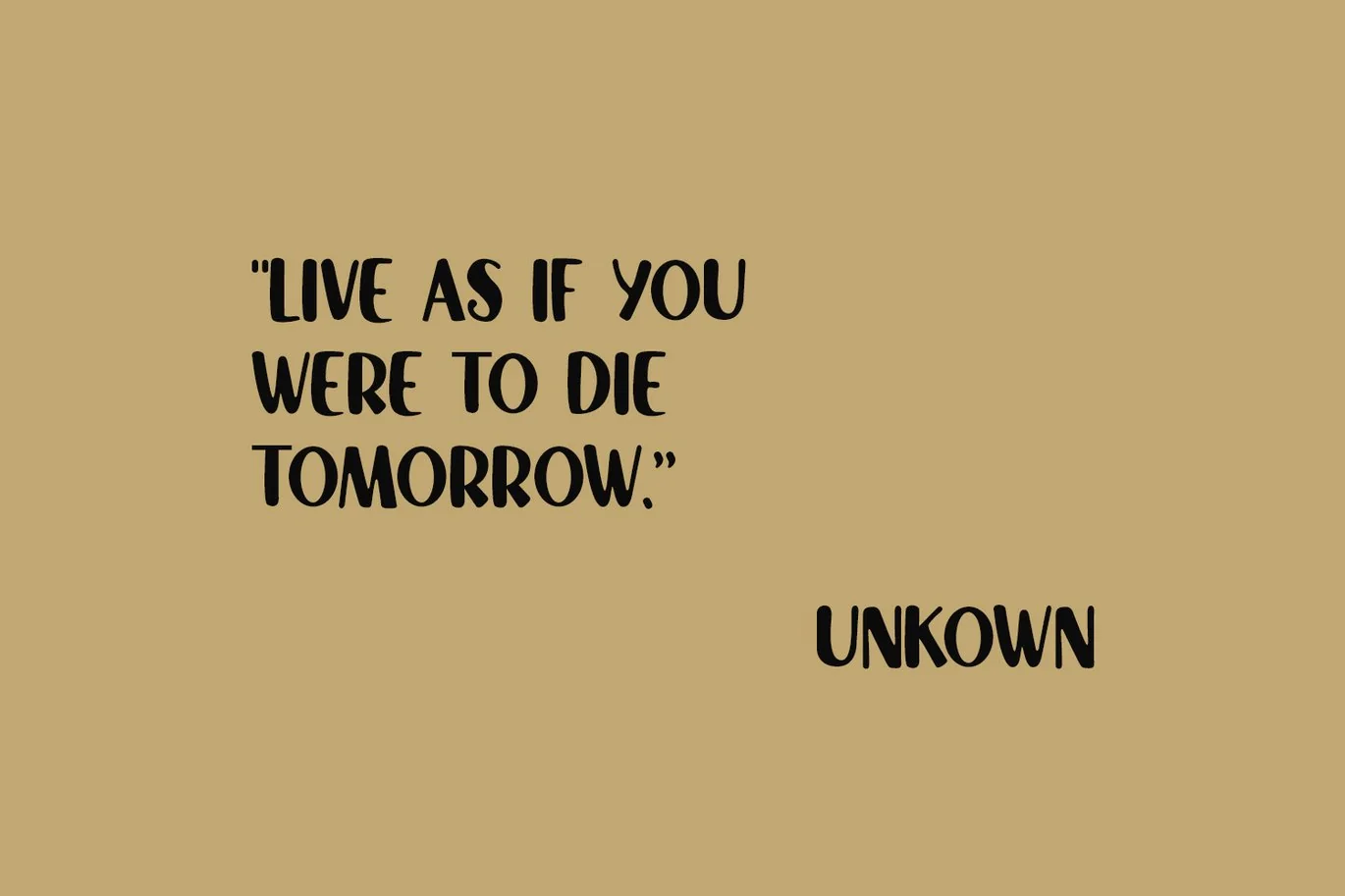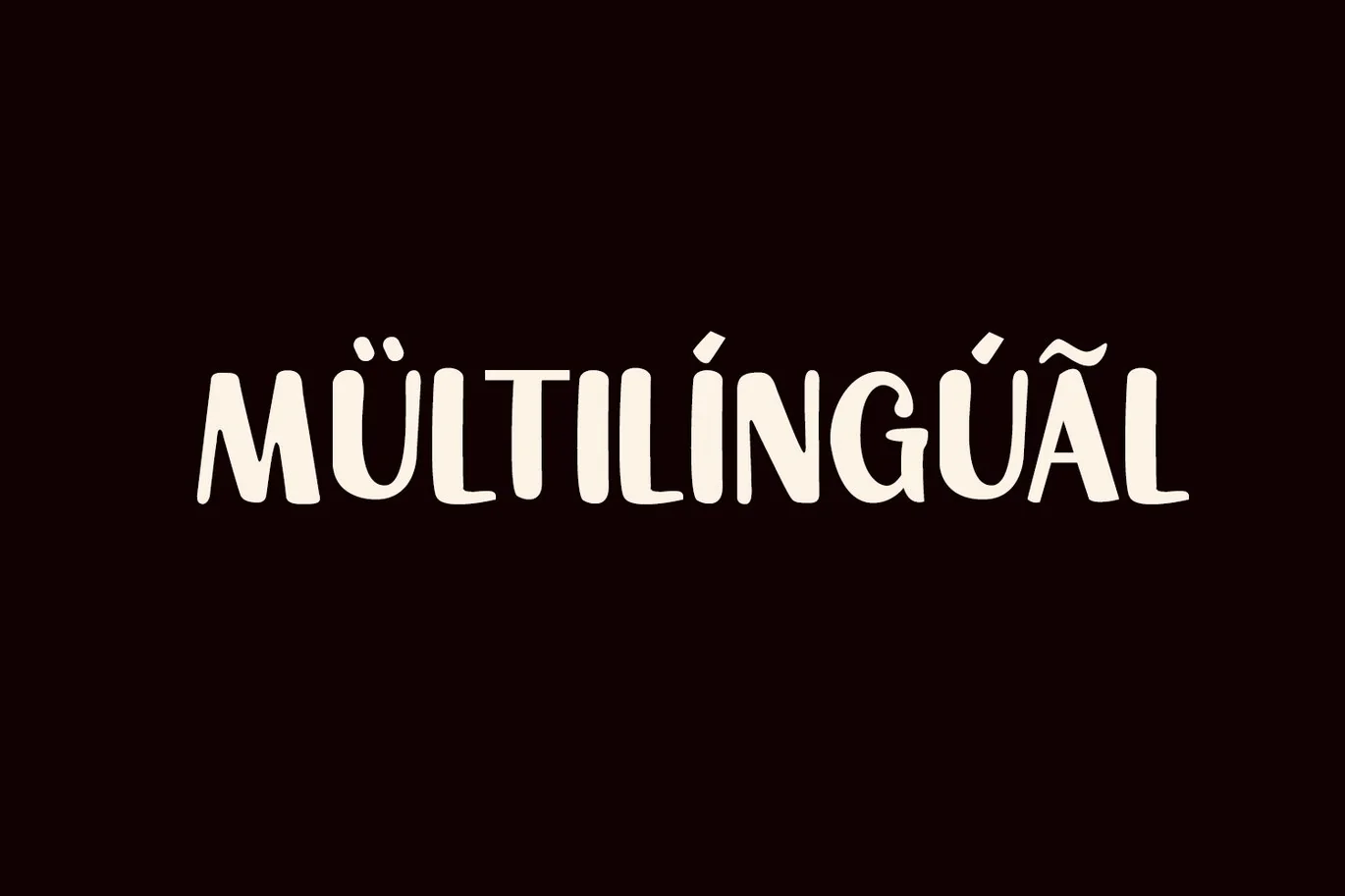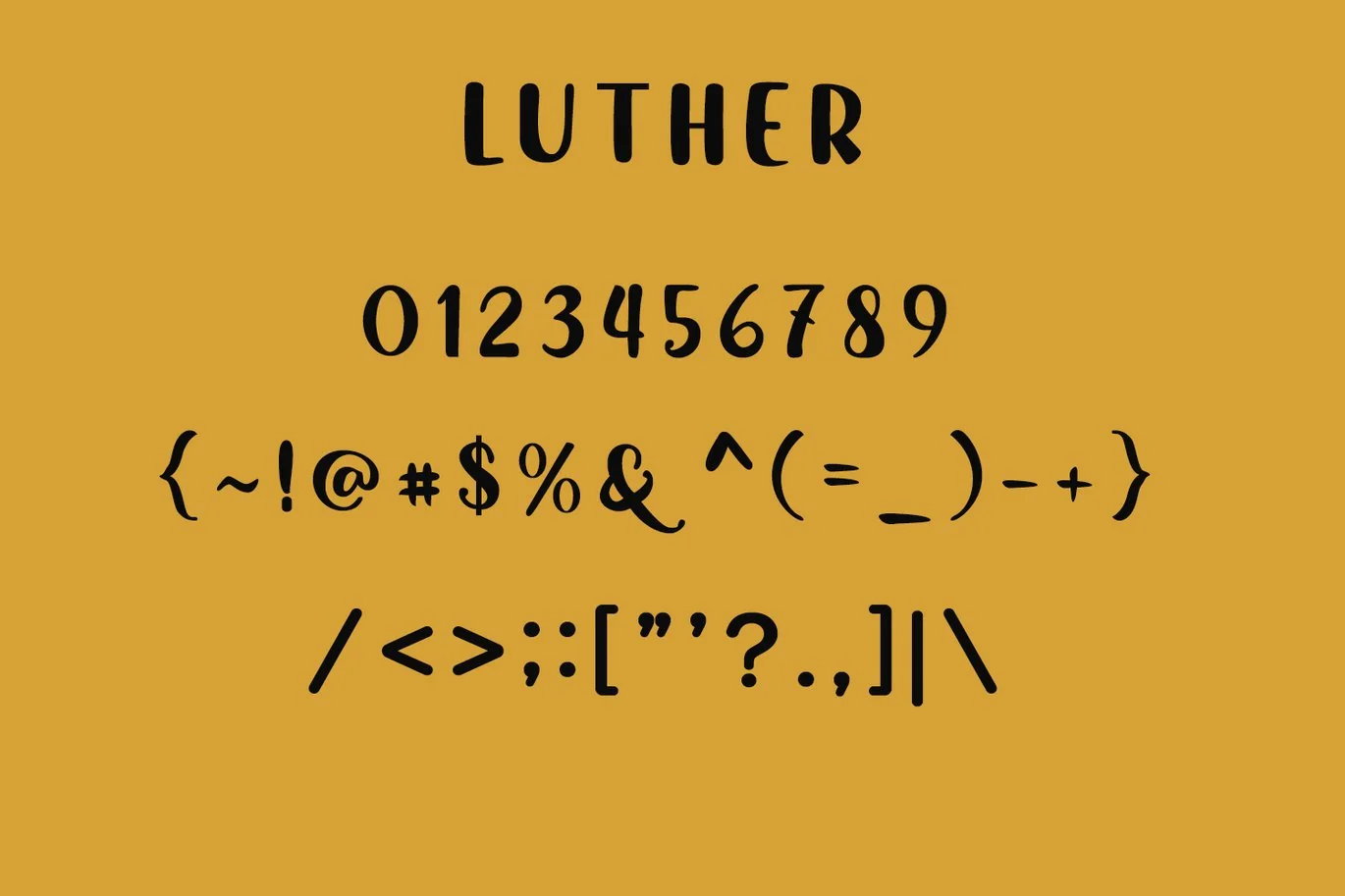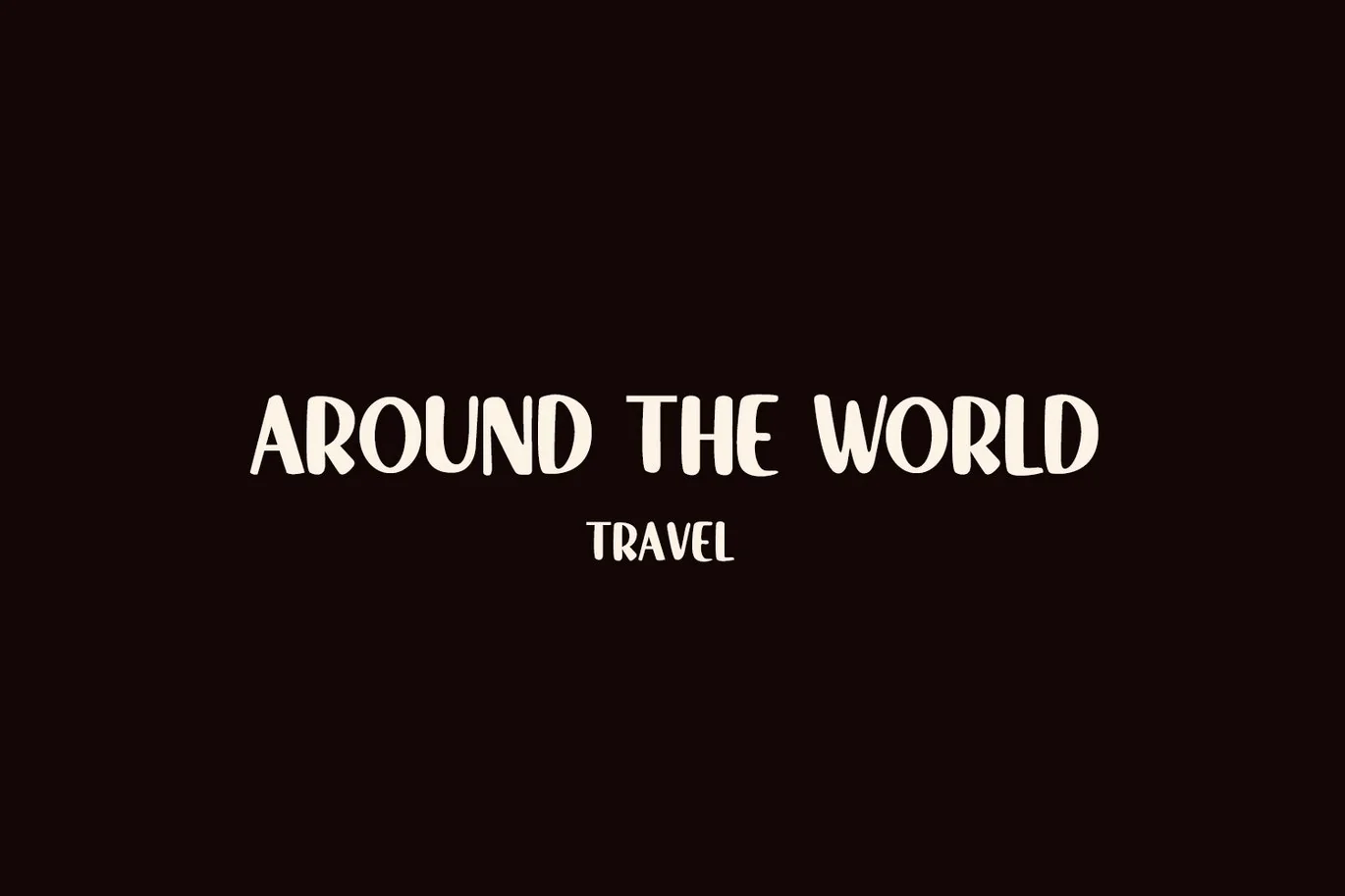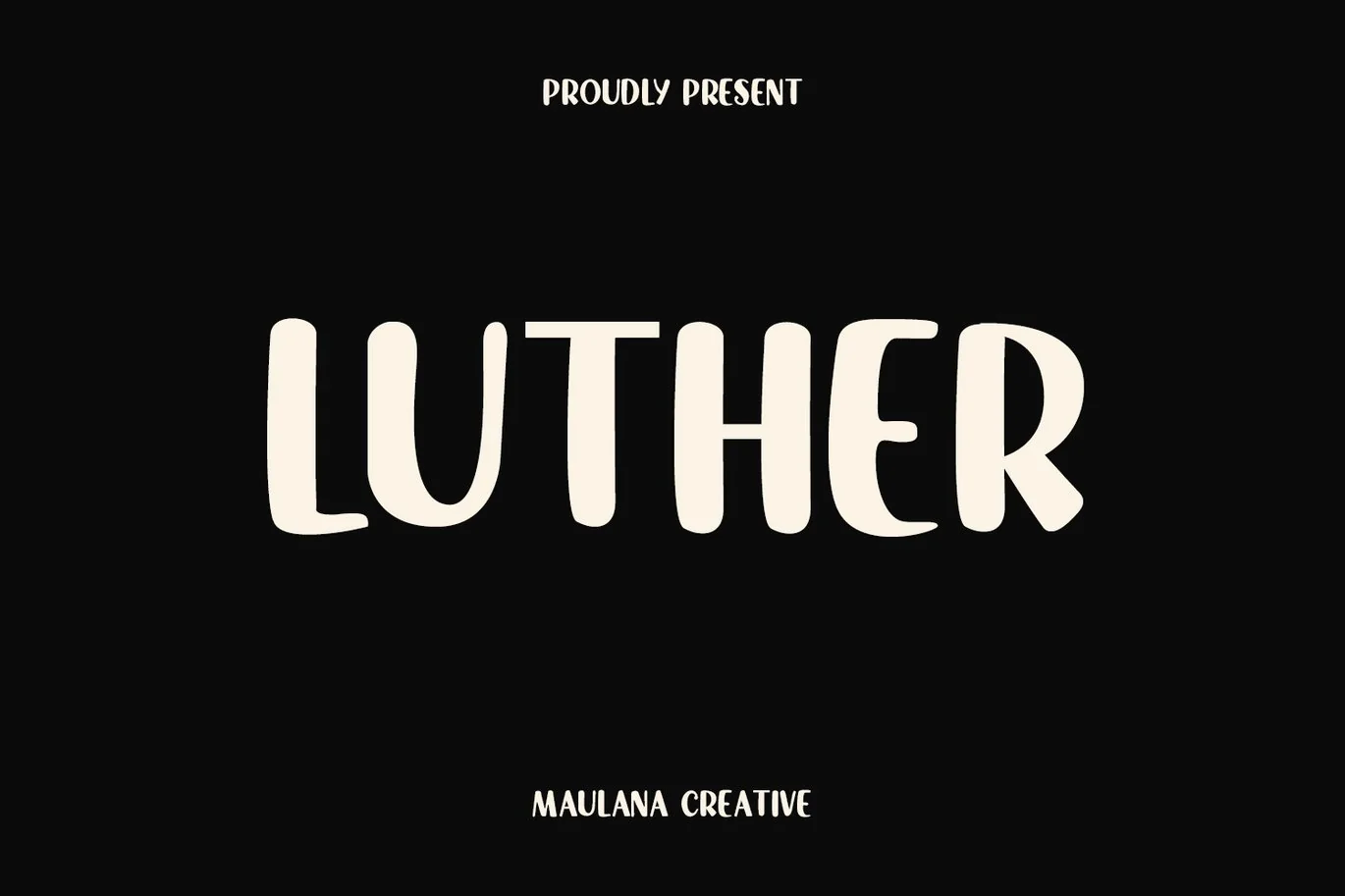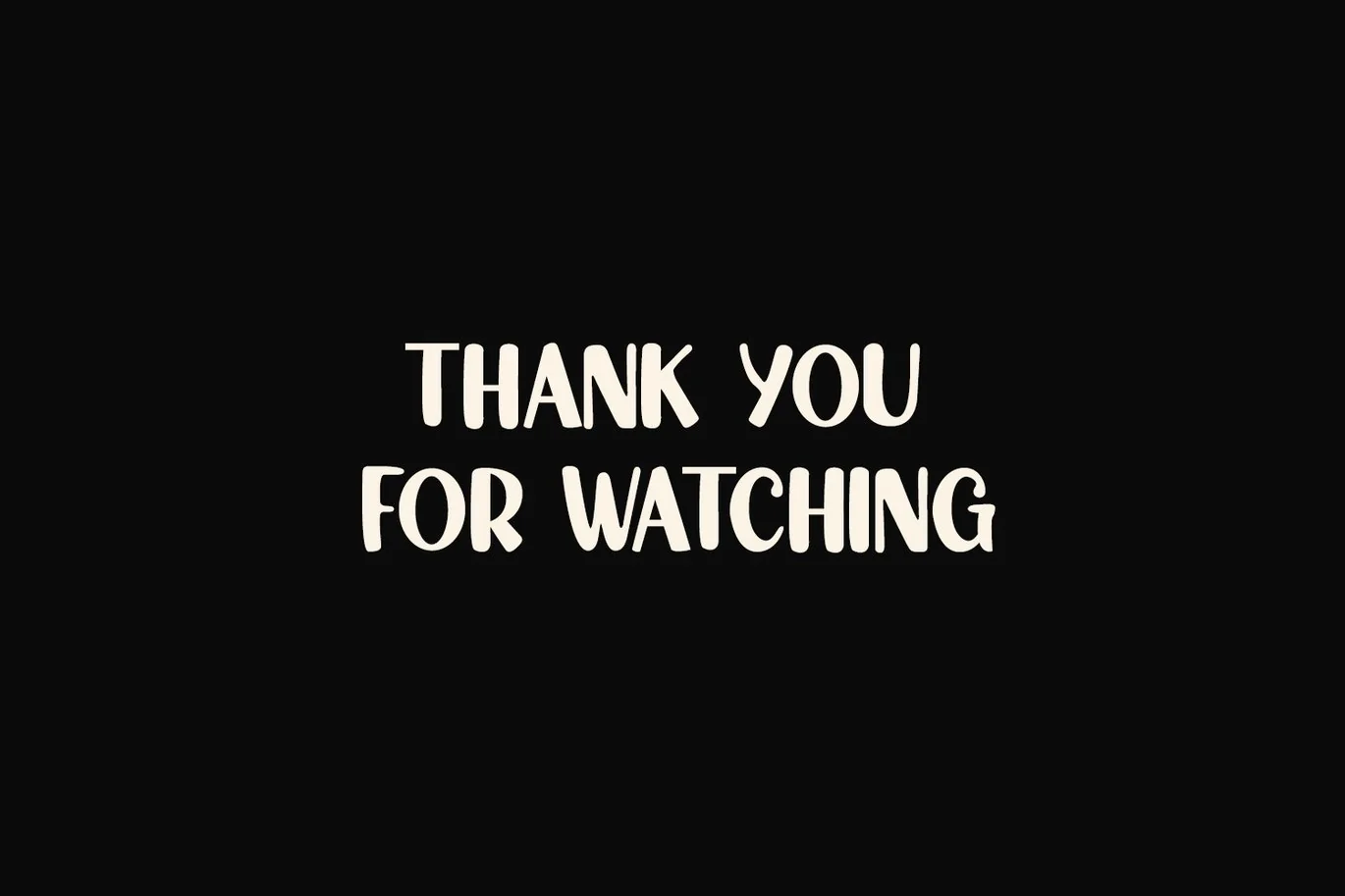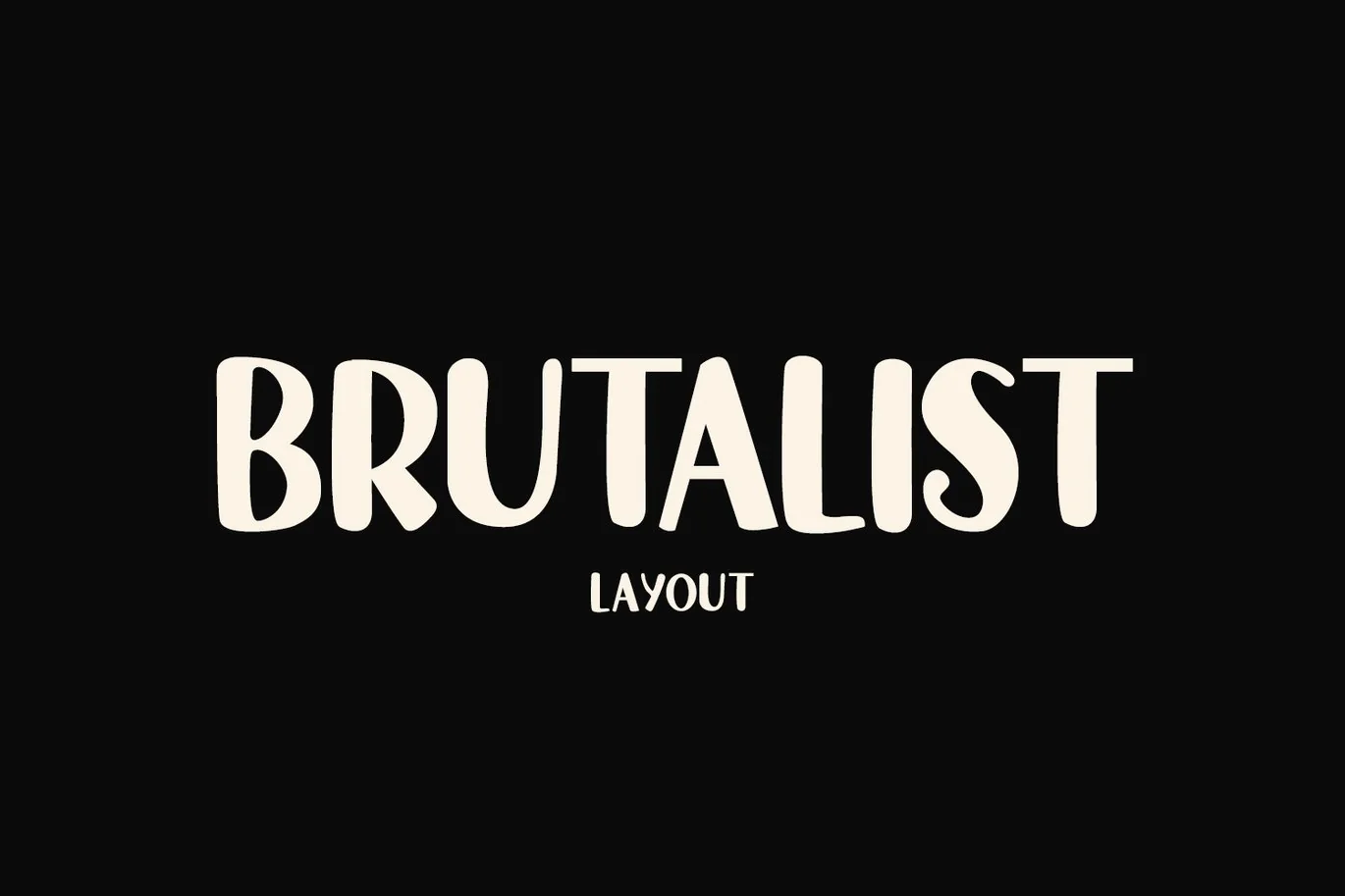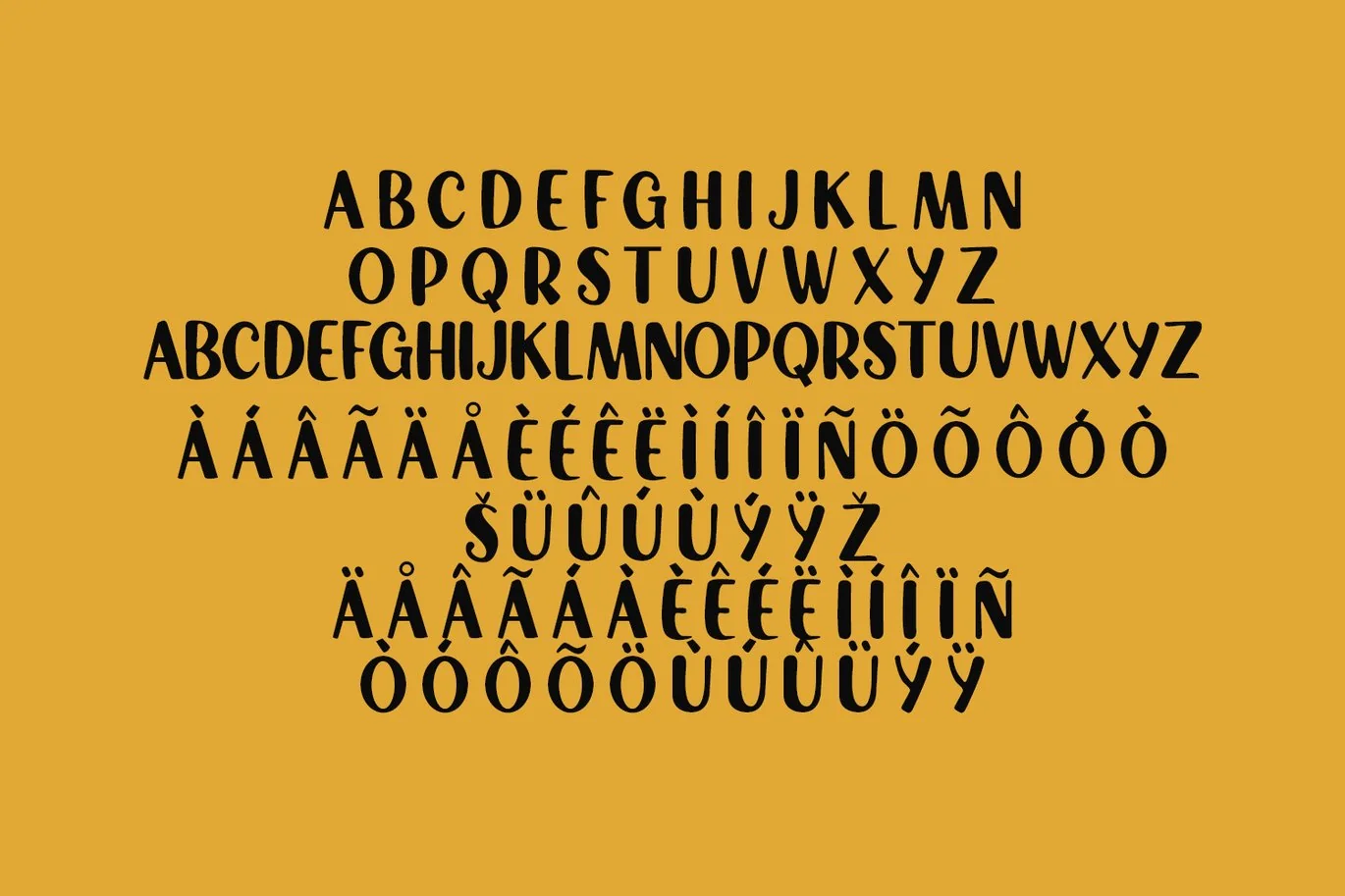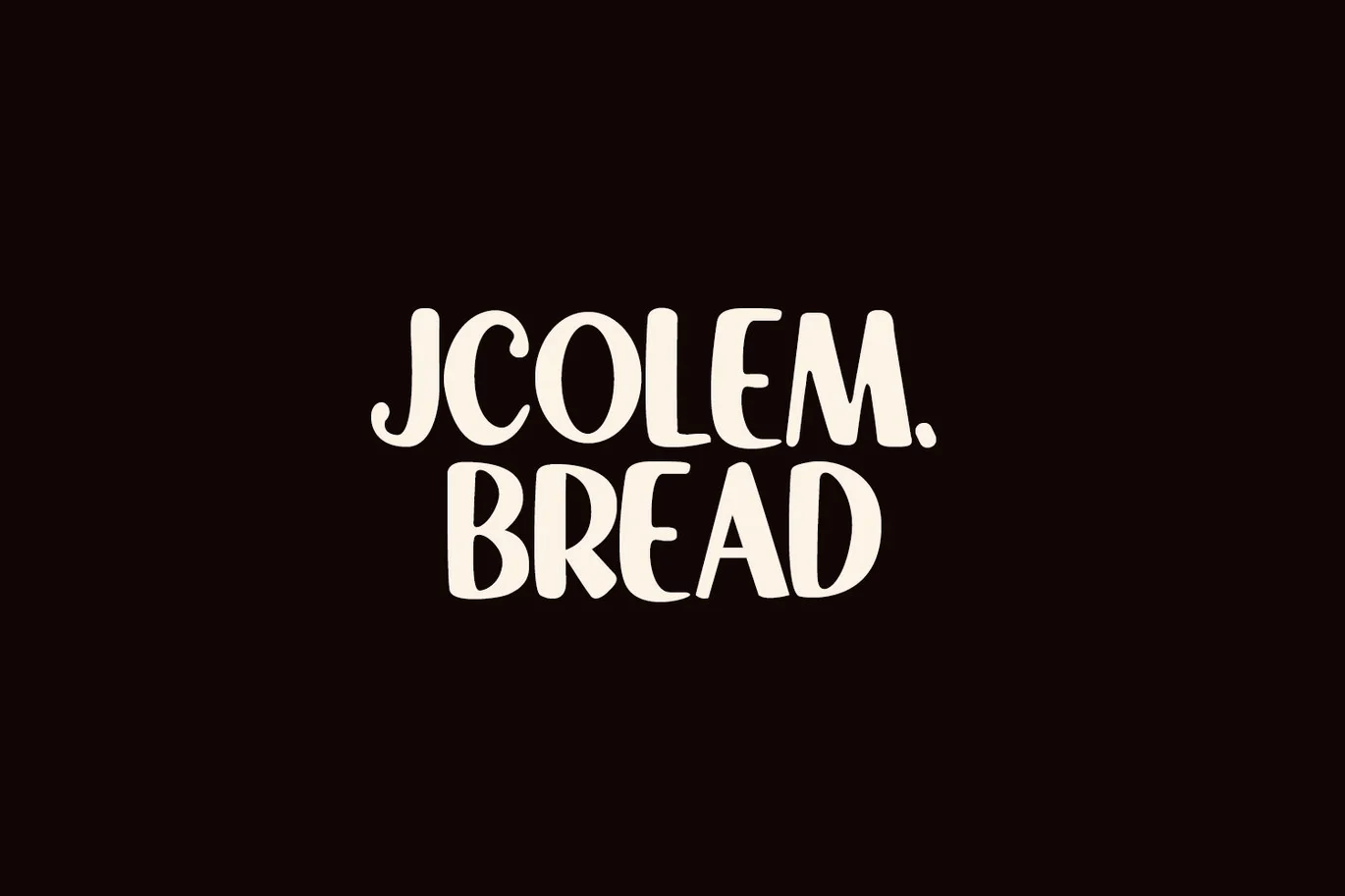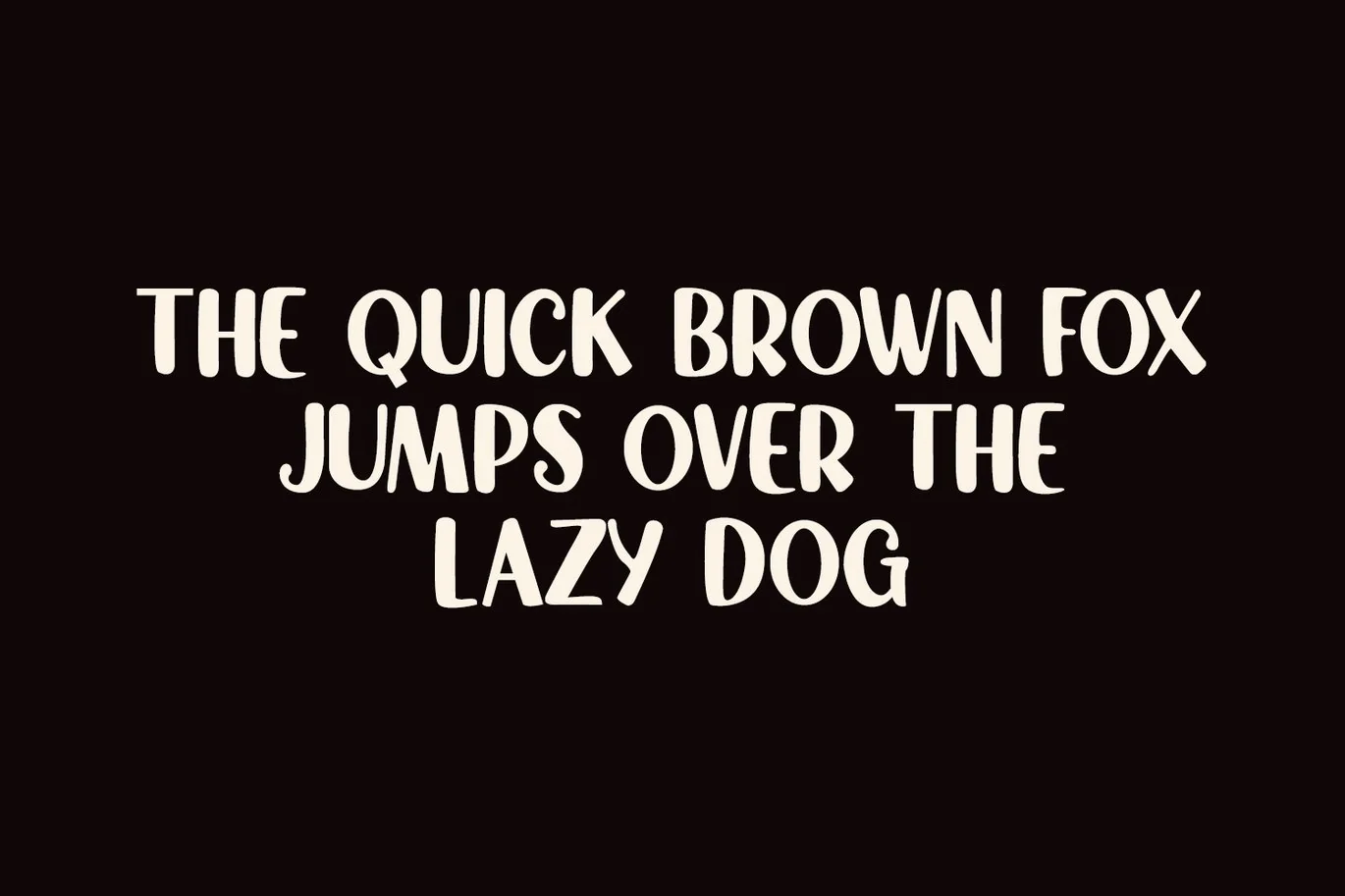
Luther Cute Sans Serif Display Font
Luther Cute Sans Serif Display Font is a contemporary sans serif font. With bold weight, unique and fun character with a bit of ligatures. To give you an extra creative work. Luther Sans font support multilingual more than 100+ language. This font is good for logo design, Social media, Movie Titles, Books Titles, a short text even a long text letter and good for your secondary text font with script. Make a stunning work with Luther Cute Sans Serif Display Font.